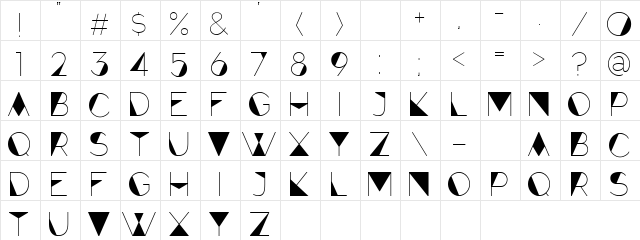
Forte Fill
Style: Fill
Foundry: PYRS Fontlab Ltd. / Made with FontLab
Designer: Kritzmire, Paul
Design Context for Forte
Forte is a composed and adaptable typeface that performs quietly and consistently across a wide range of design contexts.